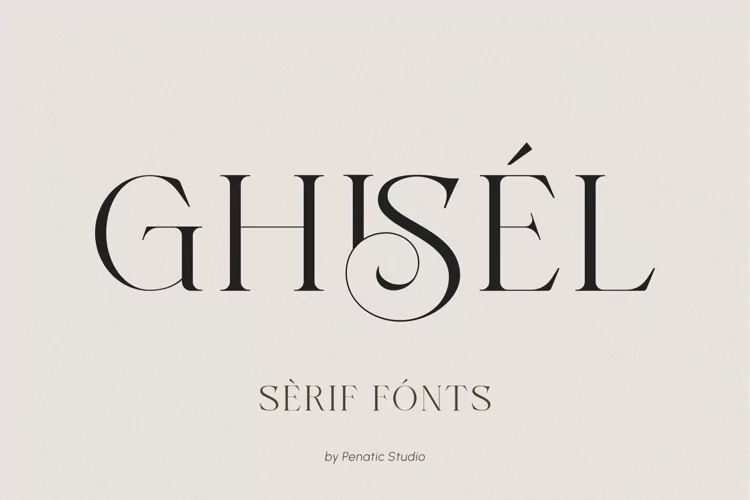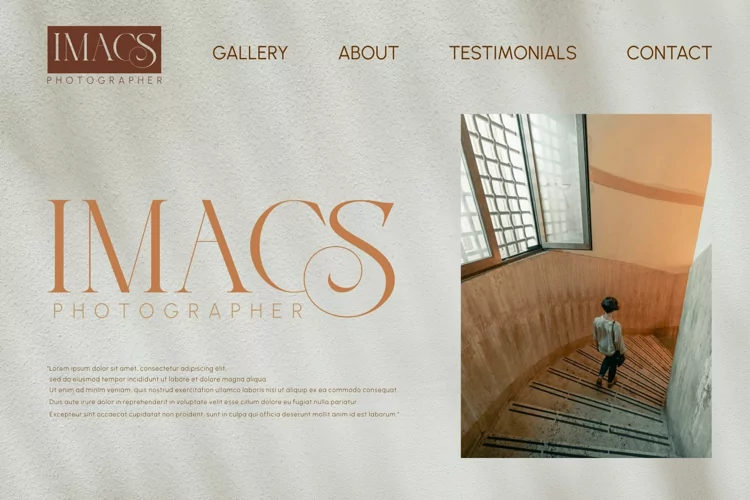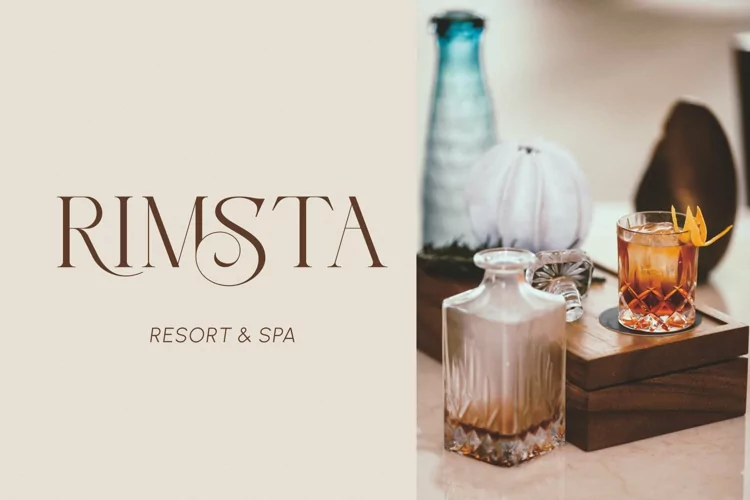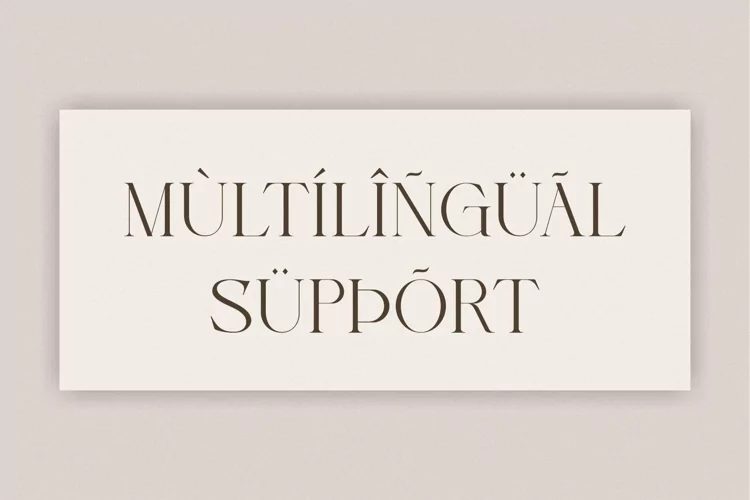
I’m a typographer and graphic designer who often experiments with modern serif fonts for branding projects. While working on a wedding invitation design, I discovered the Ghisel font free version. It instantly caught my eye with its subtle curves and elegant ligatures. I decided to test it across packaging concepts and social media posts to see how it handled different layouts. That real-world trial inspired me to write this review.
The Font Type and the Designer
Ghisel is a modern serif font developed by Penatic Studio, a creative team known for crafting typefaces that balance style with usability. This typeface brings together traditional serif structure with a contemporary design language. The curved edges and refined ligatures make it feel approachable while still professional. It belongs to the same family of elegant fonts often seen in high-end branding projects, but it remains easy to install and use across platforms.
Features of This Serif Font
The most noticeable feature of Ghisel is its elegant ligatures. These subtle connections between letters create smooth flow in words, making headlines and logos feel refined. Many ligatures are included, so you can experiment with different styles in your branding projects. The serif curves are soft yet structured, striking a balance between modern and timeless design.
Ghisel also comes with versatile weights that adapt to different outputs. Whether you’re designing a wedding post for social media platforms, packaging for a luxury product, or printed materials like stationery and invitations, the typeface scales beautifully. Designers can pair it with color palettes, background and font colors, and outputs in SVG and PNG formats to achieve consistent branding across digital and print.
The font-face is compatible with popular design tools, making installation simple. On desktop software, it works seamlessly for mockups, websites, and product designs. Its characters translate well to texts as vector-based graphics, which means you can embed and export with confidence. Ghisel is also a great choice for advertising, photography watermarks, logos, and social media posts, where typography must remain sharp.
When paired with modern serif font trends, the Ghisel serif font holds its own as a professional, flexible typeface. The full version unlocks even more stylistic sets and alternate letters, perfect for creative projects that demand polish.
Ghisel was built with versatility in mind. You can use it for branding projects where style and readability are equally important. Logos gain an elegant edge when designed with Ghisel’s modern serif details. Social media posts benefit from its clean yet decorative characters, making captions and headers stand out without overpowering visuals. For wedding designs, the font provides the romantic and classic touch needed in invitations, menus, and stationery.
Packaging designers can also take advantage of its smooth ligatures and balanced letterforms. From luxury skincare products to artisanal foods, Ghisel adapts well to both minimal and decorative layouts. Photography watermarks look sophisticated in this typeface, and its curve details complement modern advertising styles.
The Ghisel font free demo is perfect for testing personal projects, but the commercial license unlocks its full potential for larger campaigns. Designers working with outputs in SVG and PNG formats can embed texts as vector-based graphics for consistent results across websites, social media platforms, and printed materials. Whether you are designing a brand identity, experimenting with new font styles, or creating a product launch post, this font offers a polished yet approachable solution.